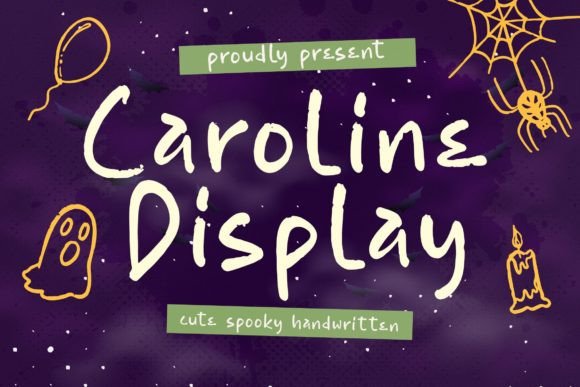
Introducing Caroline Display Font: The Ultimate Addition to Your Halloween Designs
Are you looking for a font that will add a touch of spookiness and whimsy to your Halloween designs? Look no further than Caroline Display Font! This fun and quirky handwritten font is perfect for designers and crafters who want to create eye-catching and engaging projects. In this article, we’ll take a closer look at Caroline Display Font and explore how it can elevate your Halloween designs.
What is Caroline Display Font?
Caroline Display Font is a unique and creative handwritten font that is perfect for Halloween-themed projects. Its whimsical and quirky design makes it stand out from other fonts, and its versatility ensures that it can be used in a variety of contexts. Whether you’re designing invitations, posters, or social media graphics, Caroline Display Font is sure to add a touch of personality and flair.
Key Features of Caroline Display Font
So, what makes Caroline Display Font so special? Here are just a few of its key features:
• Handwritten design: Caroline Display Font has a beautiful, handwritten design that gives it a personal and organic feel.
• Spooky and whimsical: This font has a spooky and whimsical vibe that’s perfect for Halloween designs.
• Quirky and playful: Caroline Display Font is a bit quirky and playful, making it perfect for designers who want to add some personality to their projects.
• Easy to read: Despite its unique design, Caroline Display Font is easy to read and understand, making it perfect for use in a variety of contexts.
How to Use Caroline Display Font in Your Designs
Now that we’ve explored the features of Caroline Display Font, let’s take a look at how you can use it in your designs. Here are a few ideas to get you started:
• Halloween invitations: Use Caroline Display Font to create spooky and inviting Halloween invitations that will set the tone for your party or event.
• Social media graphics: Add a touch of personality to your social media graphics with Caroline Display Font. It’s perfect for creating eye-catching and engaging posts.
• Posters and flyers: Use Caroline Display Font to create bold and eye-catching posters and flyers that will grab attention.
• Crafting projects: Caroline Display Font is also perfect for use in crafting projects, such as scrapbooking and card-making.
Tips for Getting the Most Out of Caroline Display Font
To get the most out of Caroline Display Font, here are a few tips to keep in mind:
• Use it with contrasting colors: Caroline Display Font looks best when paired with contrasting colors. Try using it with a dark background and a light-colored font, or vice versa.
• Experiment with different sizes: Don’t be afraid to experiment with different font sizes to find the one that works best for your design.
• Pair it with other fonts: Caroline Display Font can be paired with other fonts to create a unique and interesting design. Try pairing it with a sans-serif font for a bold and modern look.
Font Name Caroline Display Font
Author Glorytype Studio
In conclusion, Caroline Display Font is a fun and spooky handwritten font that’s perfect for Halloween designs. Its whimsical and quirky design makes it stand out from other fonts, and its versatility ensures that it can be used in a variety of contexts. Whether you’re a designer or crafter, Caroline Display Font is sure to add a touch of personality and flair to your projects. So why not give it a try and see the results for yourself?
• What is Caroline Display Font?: Caroline Display Font is a fun and spooky handwritten font that’s perfect for Halloween designs.